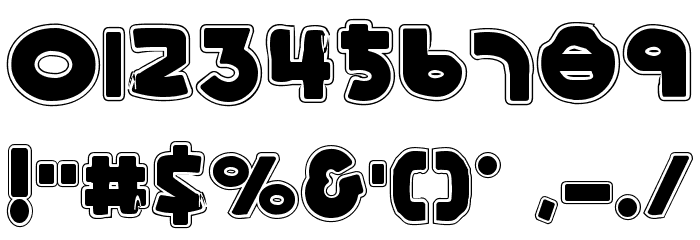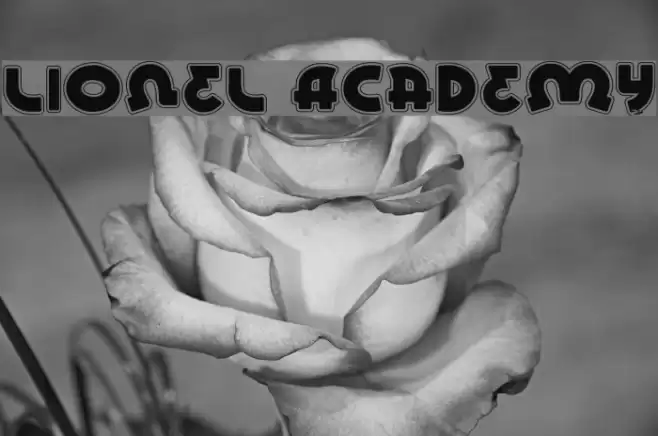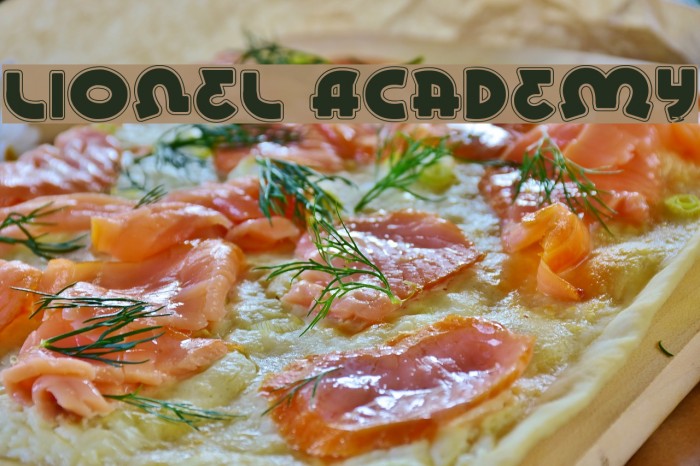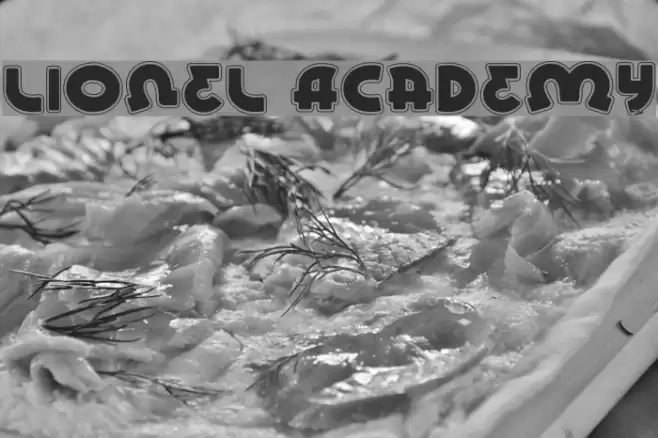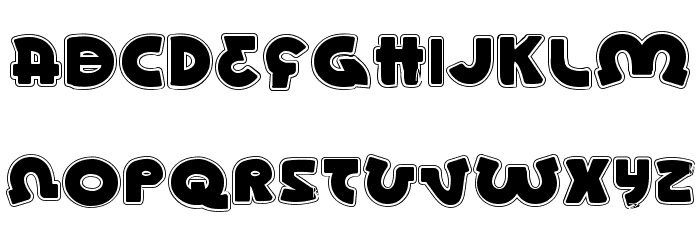
Lionel Academy Font
Lionel Academy Description
This font features a bold, playful style with a strong outline that gives each character a distinct, eye-catching appearance. The letters are rounded and have a cartoonish feel, making them ideal for designs that require a fun and energetic vibe. The uppercase and lowercase letters maintain a consistent style, with the lowercase being slightly smaller but equally bold. Numbers and special characters are included, matching the overall aesthetic with their thick outlines and rounded forms. This font is perfect for projects that aim to capture attention with a lively and dynamic look.
| Overall Style | Playful, Cartoonish |
| Proposed Projects | Ideal for children's book covers, playful branding, event posters, and any design needing a fun, energetic touch. |